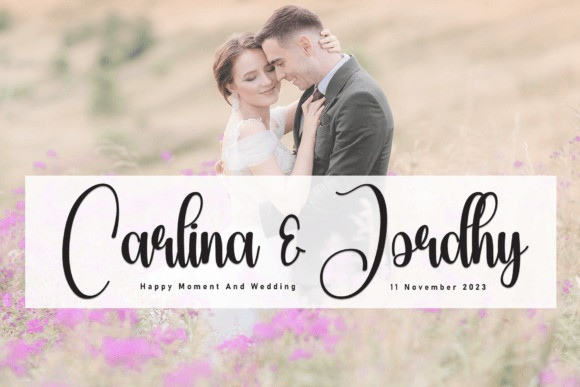
Beautyday Script Font
Beautyday Script Font is an elegant and dainty handwritten font that features sweet and delicate swashes. This original look will appeal to a wide range of crafty ideas, from letterheads and titles to stationery.